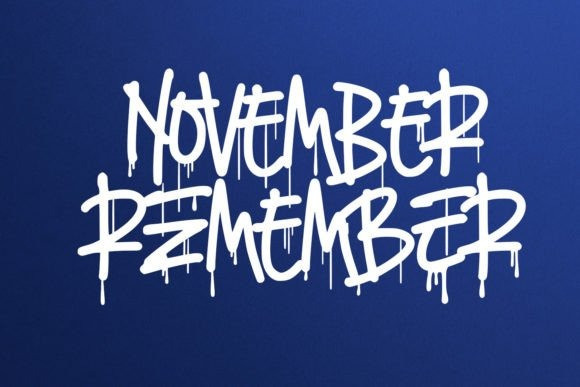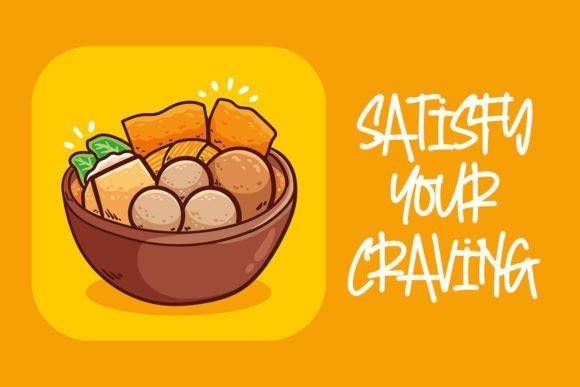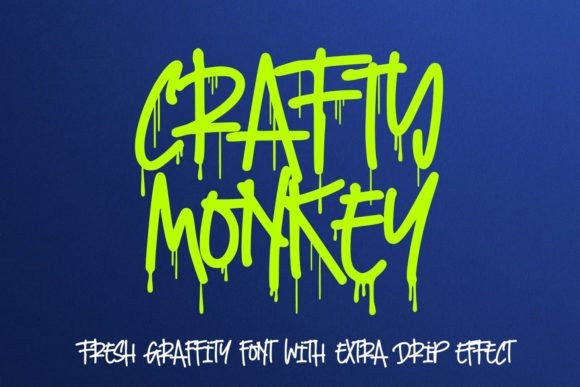
Crafty Monkey Handwriting Font
Crafty Monkey Handwriting Font is a cool and fun urban-style display font. Its graffiti-inspired characters make it the perfect font for streetwear, trendy stickers, eye-catching posters, or anything that needs a trendy look.